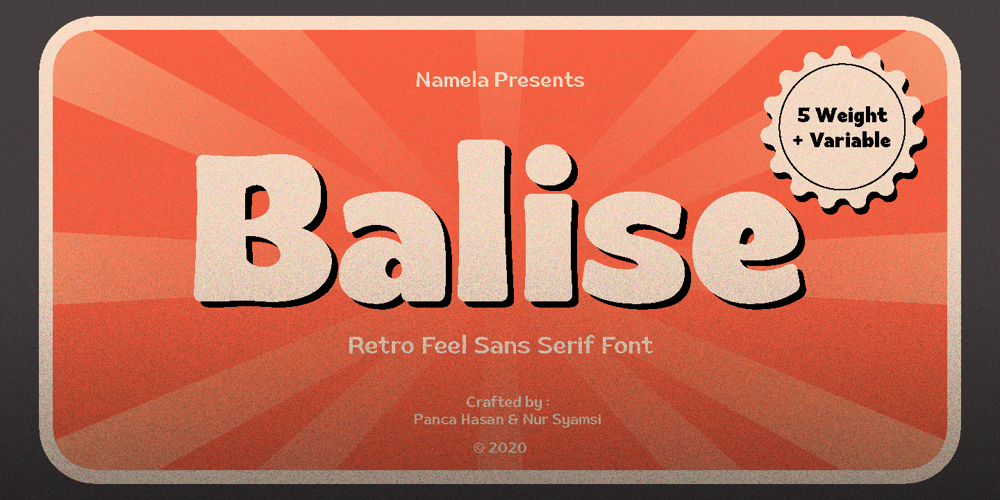
Balise Font Family was designed by Nur Syamsi, Panca Ahmadi Hasan and published by NamelaType. Balise contains 6 styles and family package options. Introducing our new product that called �Balise� A retro sans serif influenced from 60s style typeface and coupled with a touch of rounded corners to provide a playful concept with a vintage design style.Balise has 5 weights, and is also equipped with open type features and is supported by various international languages.